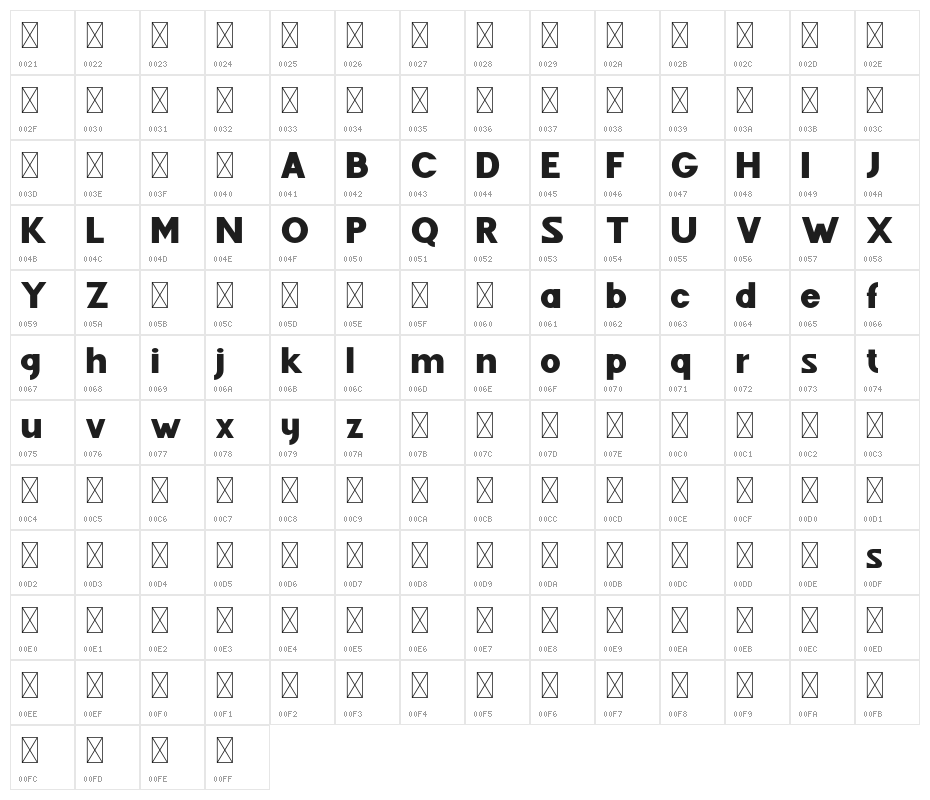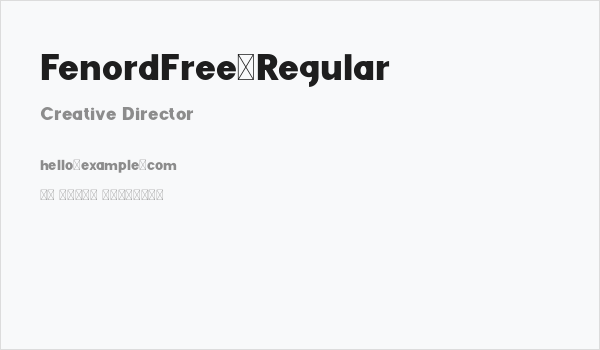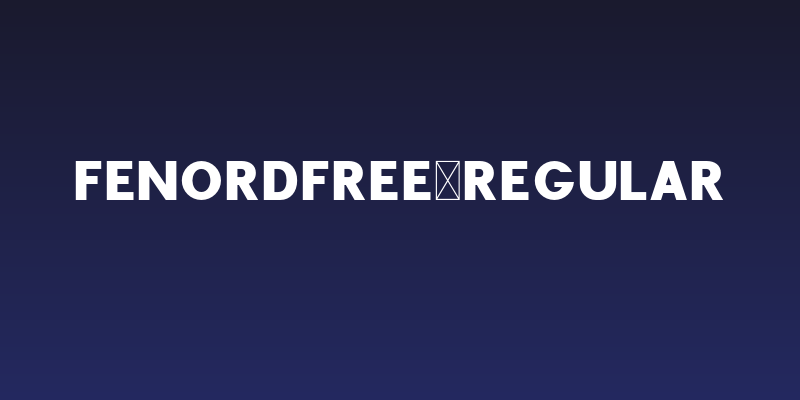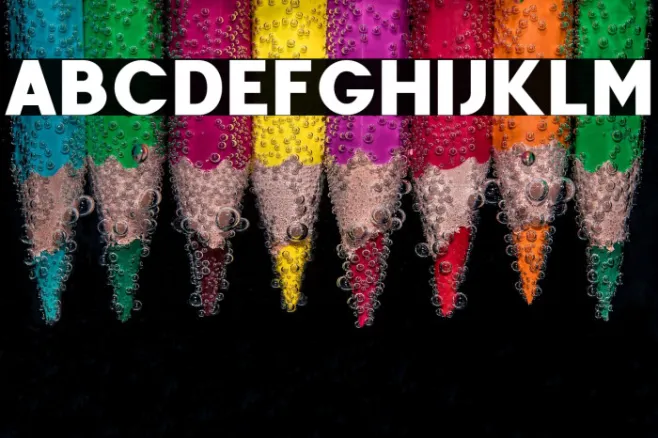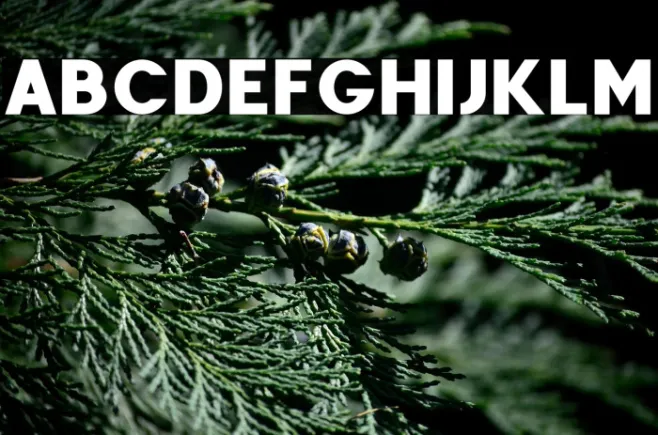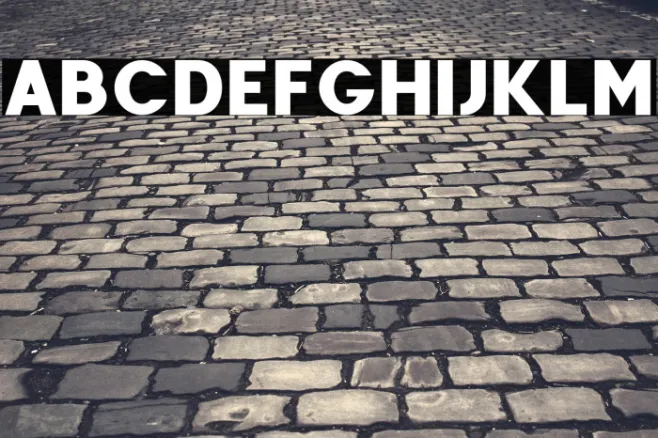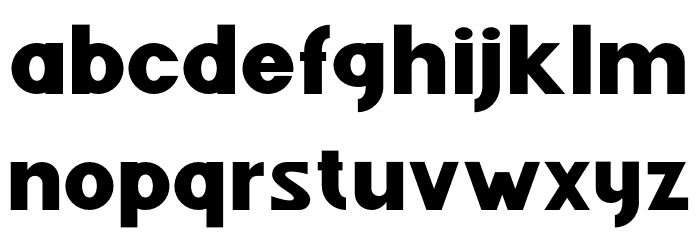
FenordFree-Regular Font
FenordFree-Regular Description
This font exhibits a bold and modern aesthetic, characterized by its strong geometric shapes and clean lines. The uppercase letters are uniform in height, creating a sense of stability and balance. The lowercase letters maintain a consistent style, with rounded edges that soften the overall appearance. The font's design is straightforward, making it highly legible and versatile for various applications. The absence of serifs contributes to its contemporary look, while the even stroke width ensures clarity and readability across different sizes.